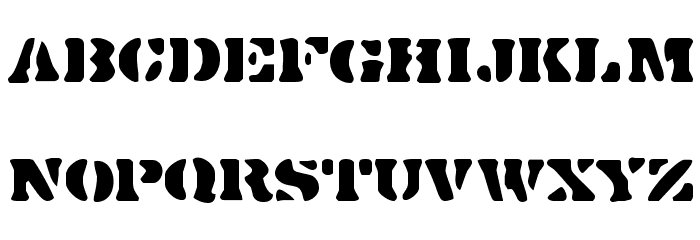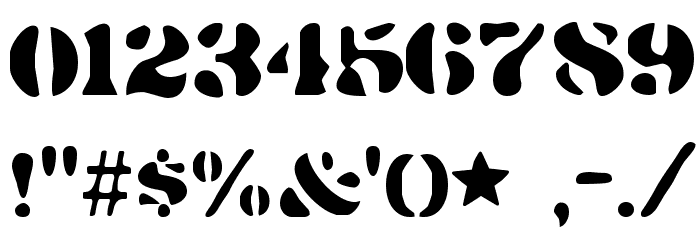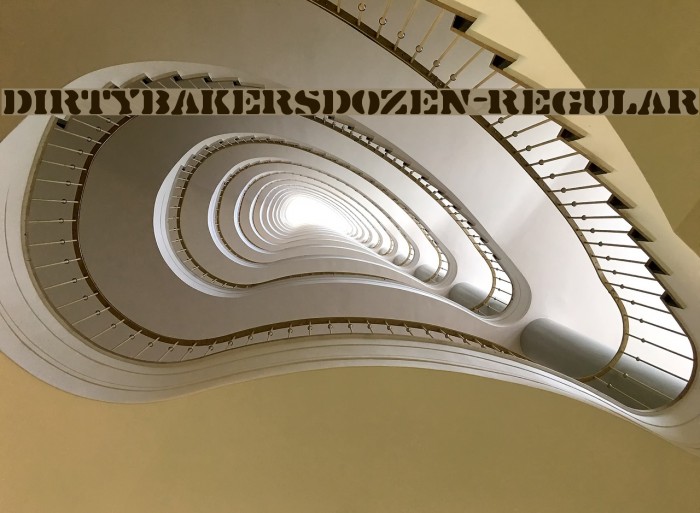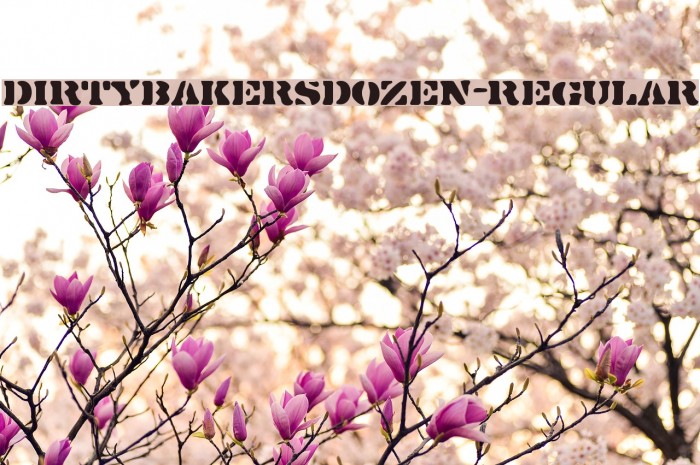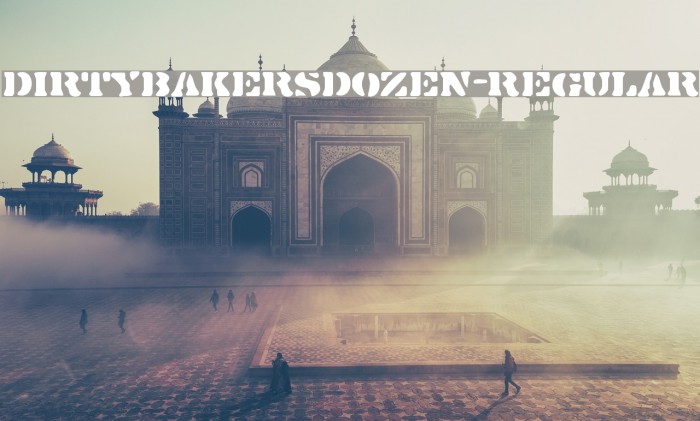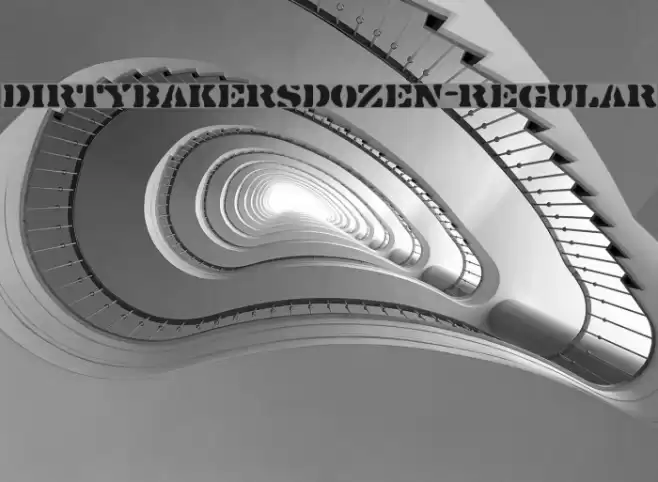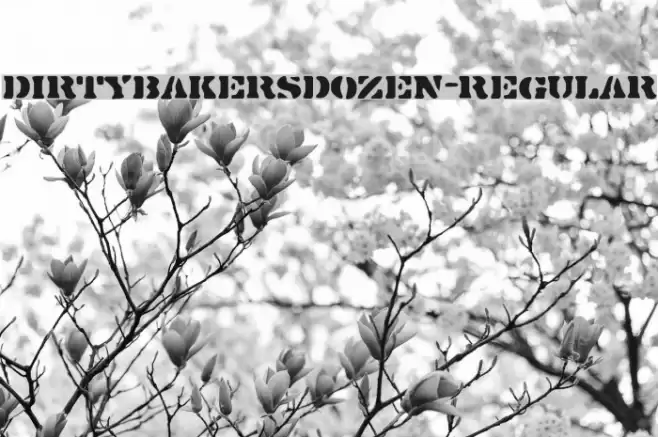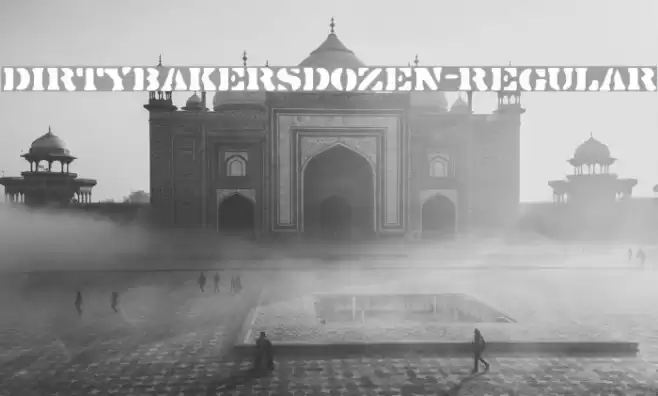
DirtyBakersDozen-Regular Font
This font features a bold, stencil-like design with thick, blocky letters that have cut-out sections, giving it a rugged and industrial feel. The uppercase and lowercase letters maintain a consistent style, with sharp angles and a uniform thickness throughout. The numbers and special characters follow the same aesthetic, ensuring a cohesive look across all glyphs. This font's distinct appearance makes it stand out, ideal for projects that require a strong visual impact. The spacing between characters is tight, enhancing its compact and robust appearance.
A bold, stencil-style font with a rugged, industrial look.
- Proposed Projects: Ideal for posters, signage, branding, and any project needing a strong, impactful typeface.
- Character Spacing: Tight
- Overall Style: Industrial, Rugged